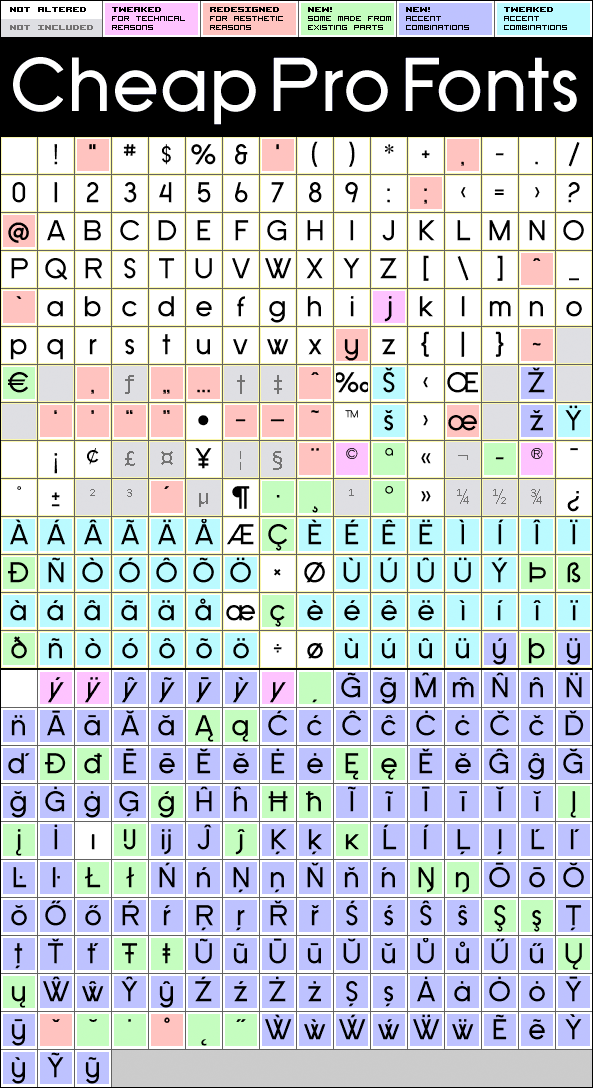
SF Old Republic Pro
SF Old Republic Pro by Derek Vogelpohl
Derek Vogelpohl
OpenType features
Stylistic Alternates
A more neutral version of SF New republic Pro ;)
Lowercase letters have spurs, and I have also here used the redesigned, softer "y" (but kept the original angular y as a stylistic alternate).
SF Old Republic Pro is a professionally reworked font that contains an extended character set for setting text in 65 languages requiring more than the basic A-Z!